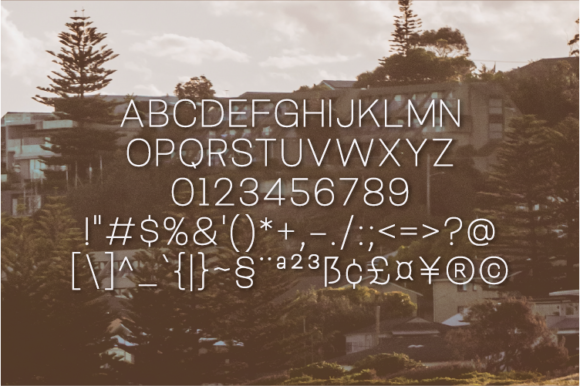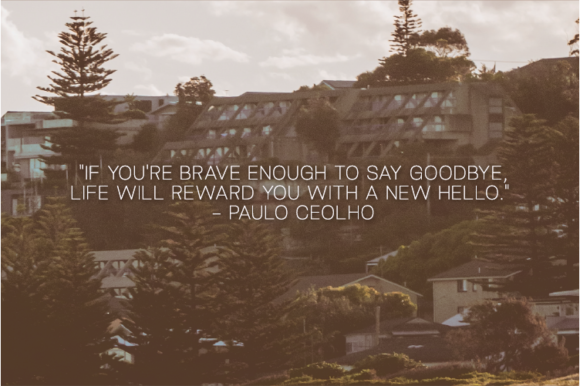
Introduction to Oldveron Font
Oldveron is a stunning sans serif font created to complement every project you’re working on.
It is perfect for displays, headers, invitations, save the dates, weddings, and so much more .
Key Features of Oldveron Font
Why Choose Oldveron Font?
Oldveron Font offers exceptional quality and versatility, making it a valuable addition to your design toolkit. Whether you’re creating for personal projects or commercial use, Oldveron Font delivers professional results.